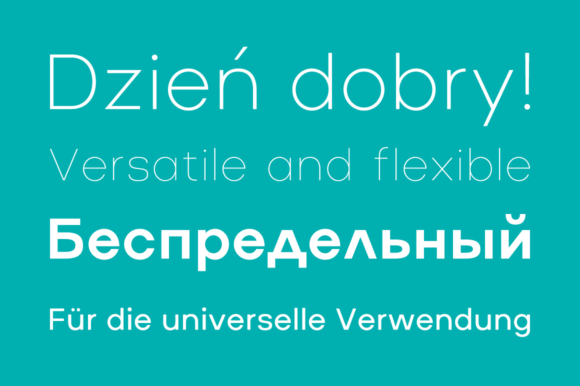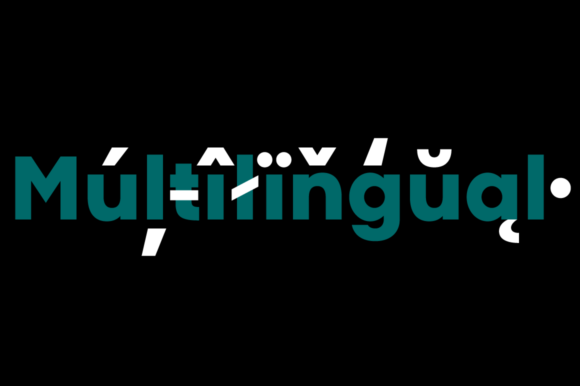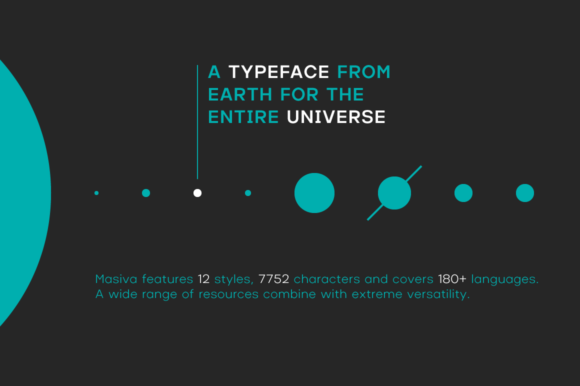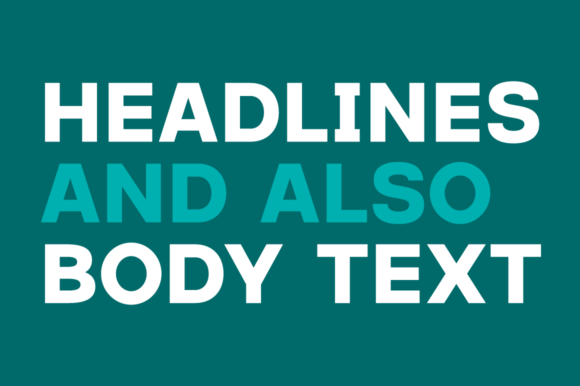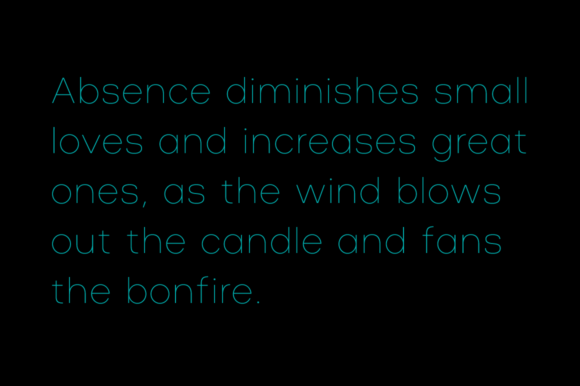
Introduction to Masiva Family Font
Have you ever been stuck on a design project, searching for the perfect font to bring your creative vision to life? We’ve all been there – staring at a blank screen, scrolling through endless options, and wondering why the perfect font just can’t be found. But what if I told you that there’s a font that’s not only versatile but also incredibly stylish, making it the perfect addition to any project?
Meet the Masiva Family Font, a stunning geometric sans serif typeface designed by Pablo Balcells for the Graviton Font Foundry in 2018. This high-quality design resource is a game-changer for designers, offering a unique combination of style and legibility that’s perfect for both modern and classic projects.
Key Features of Masiva Family Font
- High-quality design resource ideal for creative projects requiring a modern and sleek aesthetic.
- Unique characteristics: a modern sans-serif font with clean lines, geometric shapes, and a minimalist approach, making it perfect for a wide range of creative projects.
Honest Review: Masiva Family Font
I recently had the chance to work with the Masiva Family Font, and I must say it’s been a game-changer for my creative project. The high-quality design resource is perfect for those looking for a free download to elevate their work.
- ✨ Large character set: The Masiva Family Font comes with a vast array of characters, including Latin, Cyrillic, and Greek alphabets.
- ✨ Transparent background: The font’s transparent background allows for seamless integration with any design, giving you complete control over the look and feel.
- ✨ High-quality design: The font is designed to perfection, making it a valuable asset for any creative project.
- ⚠️ Limited customizability: While the font is highly customizable, there are some limitations when it comes to altering the design.
- ⚠️ Not ideal for complex typography: The font may not be the best choice for complex typography or intricate designs.
Overall, the Masiva Family Font is a fantastic design resource that I highly recommend. Its high-quality design and transparent background make it perfect for a wide range of creative projects. Just be aware of its limitations, and you’ll be all set to create stunning designs with ease.
Getting the Most Out of the Masiva Family Font
To get the most out of the Masiva Family Font, use it with a transparent background to create a high-quality design. This font is perfect for creative projects, such as logos, brochures, and social media graphics. Experiment with different font sizes, colors, and combinations to achieve a unique look.
The Masiva Family Font is ideal for various design projects, including:
- Logos and branding
- Website design
Alternatives to Masiva Family Font
The Great Vibes Font is a high-quality, elegant script font perfect for creative projects that require a touch of sophistication. It’s ideal for use in wedding invitations, branding, and other design elements where a unique, handwritten feel is desired.
Compared to Masiva Family Font, Great Vibes Font offers a more refined and intricate design, making it suitable for a wider range of design applications. While Masiva Family Font is great for bold, eye-catching titles, Great Vibes Font is better suited for more subtle, elegant uses.